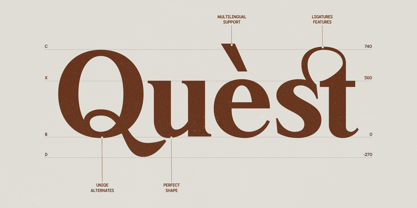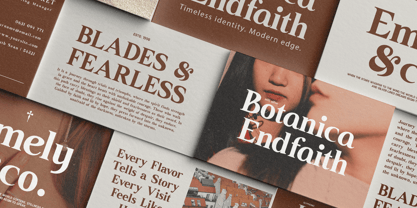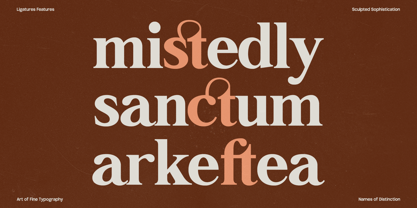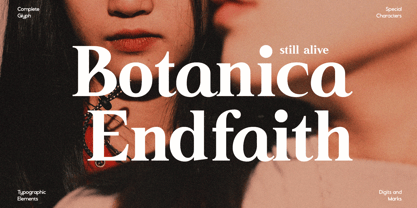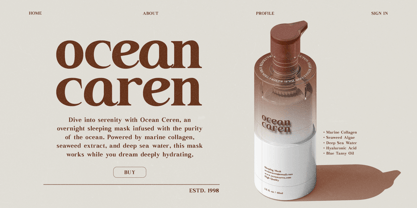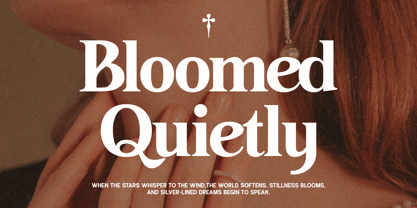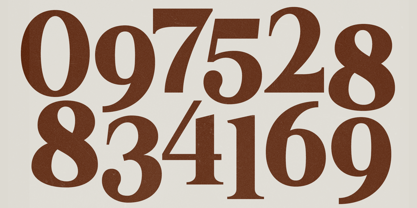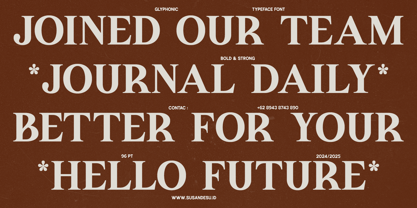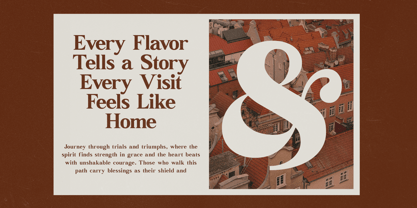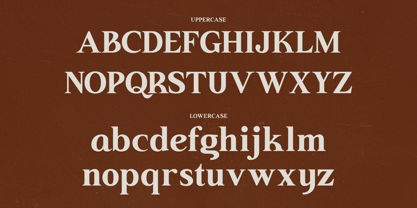
GC Neue Benfica
by Onyx Studio
The GC Neue Benfica Font Family was designed by Muhammad Hafiizh Solana and published by Onyx Studio. GC Neue Benfica contains 2 styles and family package options. More about this family
GC Neue Benfica is a modern classic serif typeface crafted for elegance, versatility, and timeless appeal. With refined proportions, graceful curves, and balanced contrast, it delivers a sophisticated voice that works seamlessly across digital and print media. Designed to embody tradition with a contemporary touch, it’s perfect for branding, editorial layouts, luxury packaging, and striking visual identities. Every detail is shaped to bring both authority and refinement, making GC Neue Benfica adaptable yet distinctive. Whether you’re creating bold headlines, refined editorials, or elegant posters, this font adds sophistication, clarity, and modern elegance to your typography. Features: Uppercase & Lowercase Numbers & Punctuation Modern Classic Serif Construction Multilingual Support (170+ Languages) Bring timeless sophistication and modern elegance to your design with GC Neue Benfica.
Designers: Muhammad Hafiizh Solana
Foundry: Onyx Studio